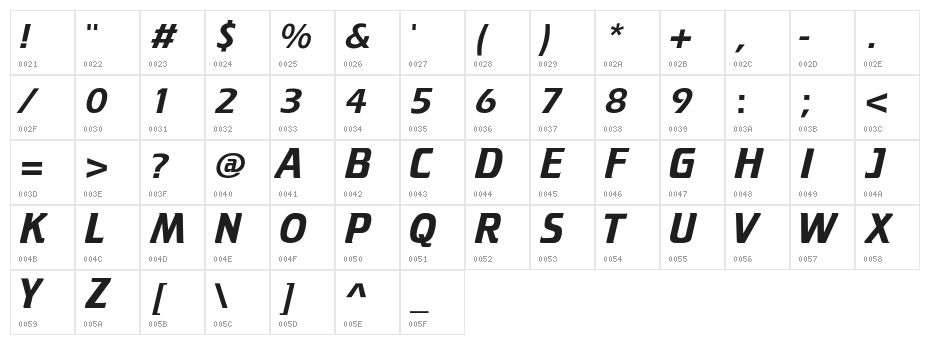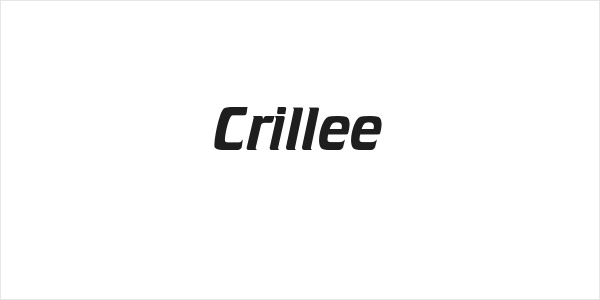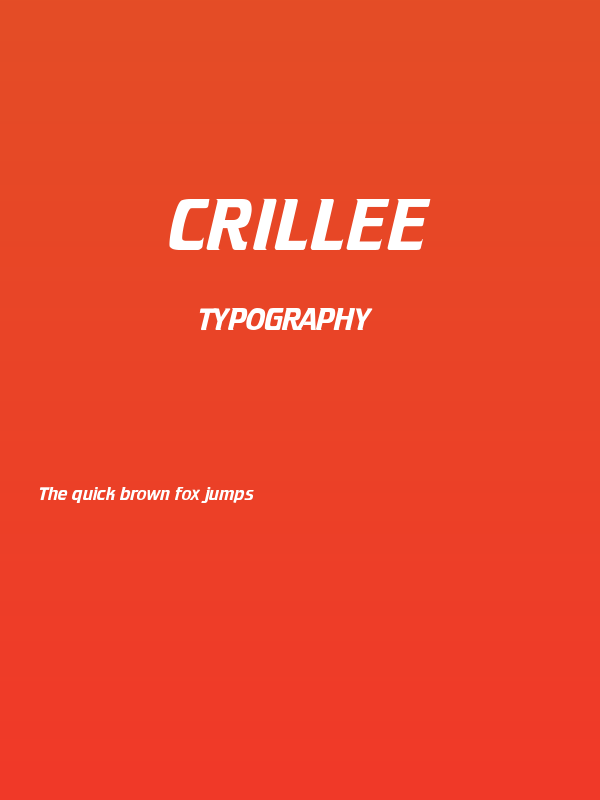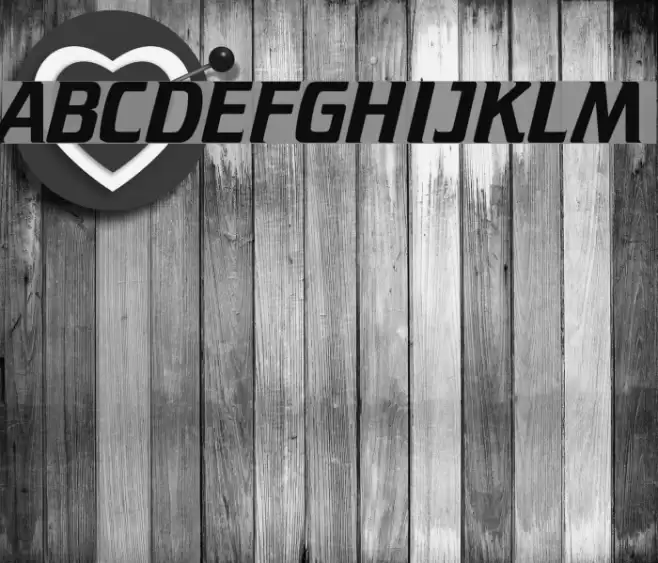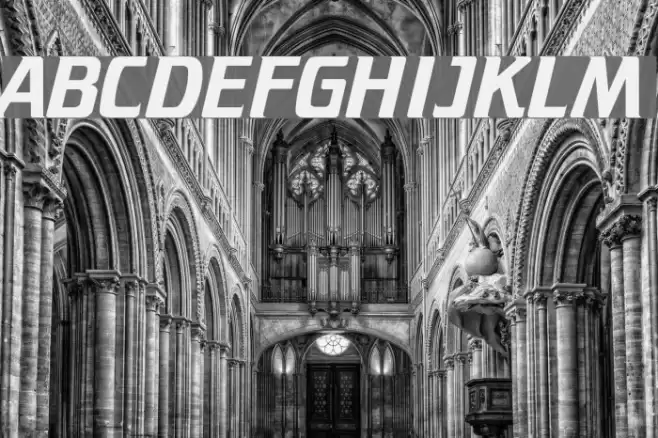
Crillee Font
Crillee Description
This font features a dynamic and modern design with a slight italic slant, giving it a sense of motion and energy. The characters are bold and well-defined, with a consistent stroke width that maintains readability across various sizes. The uppercase and lowercase letters are designed to complement each other, offering a cohesive look. The numerals are clear and distinct, making them suitable for both display and text purposes. Special characters are included, providing versatility for different types of content. The overall appearance is sleek and professional, making it ideal for contemporary projects.
| Proposed Projects | Ideal for branding, advertising, sports-related designs, and dynamic headlines. |